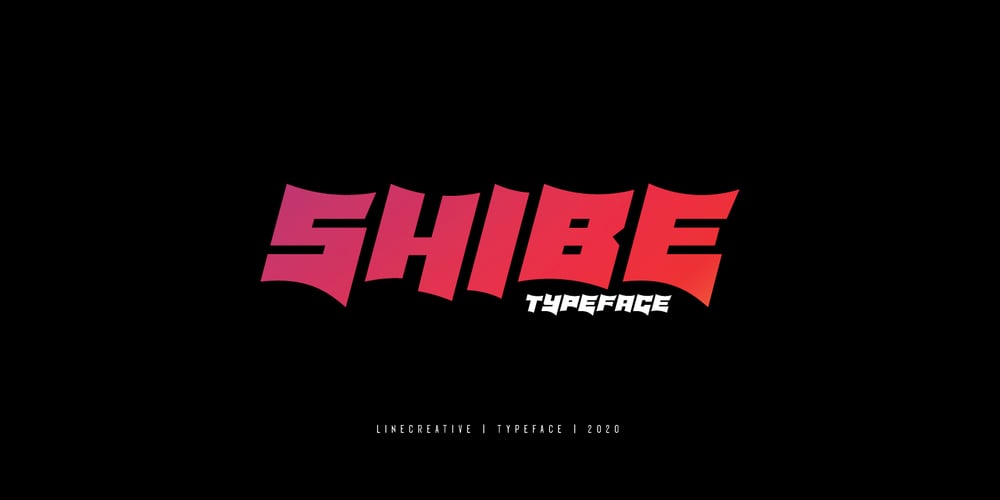
Shibe
Shibe font
Shibe Font Family was designed by Ari Juanda and published by Linecreative. Shibe contains 1 styles and family package options. Shibe – Bold italic font, has a strong, sharp character, and is combined with the font graffiti styles, To make a beautiful combination, simply mix upper and lower case and mix with alternative glyphsShibe offers you: Shibe- A clean Bold italic font including Upper & Lowercase characters(ALL CAPS), Stylistic alternates Character (2 Character) Supports Multi linguage (Latin Western Europe), Numbers and Punctuation